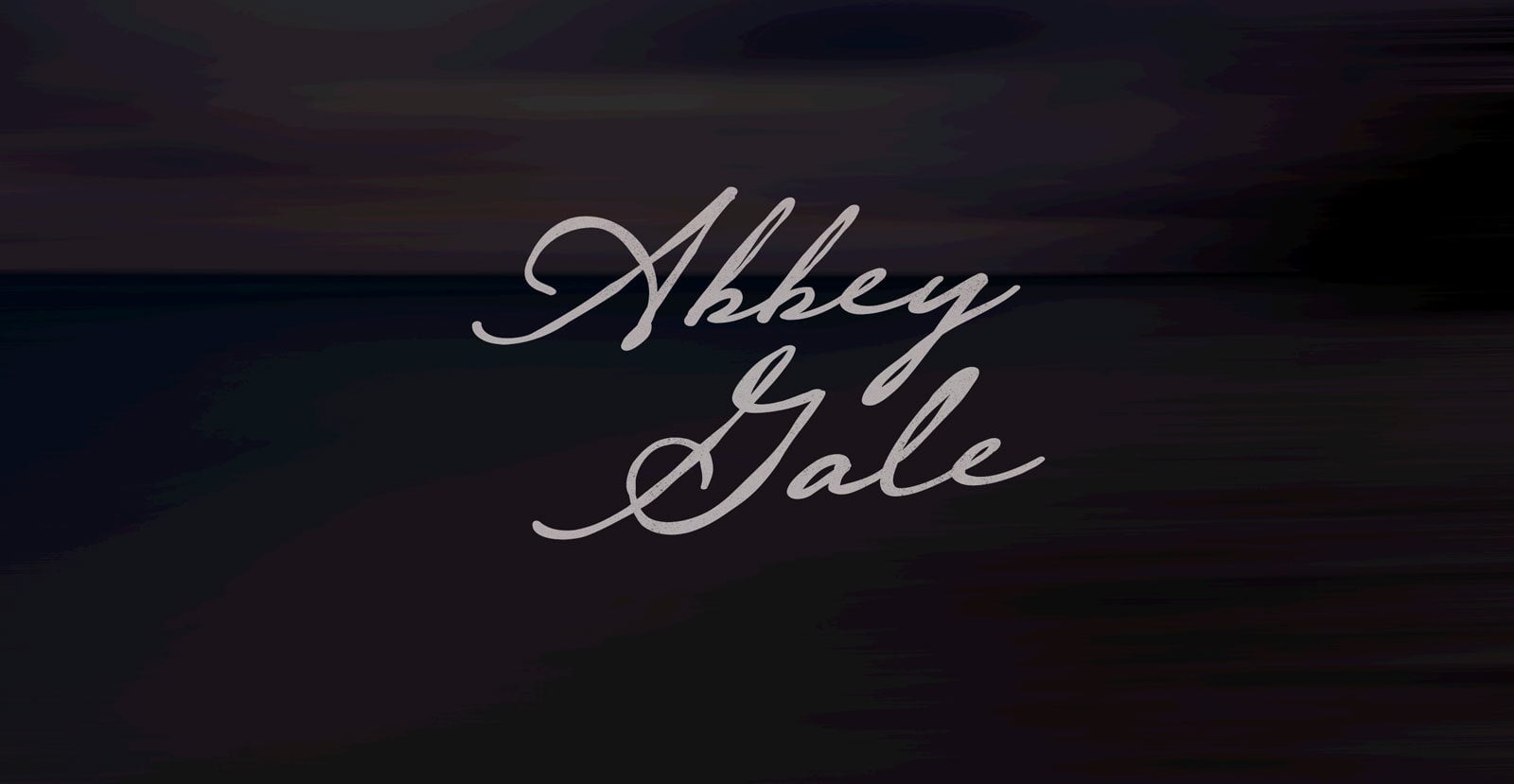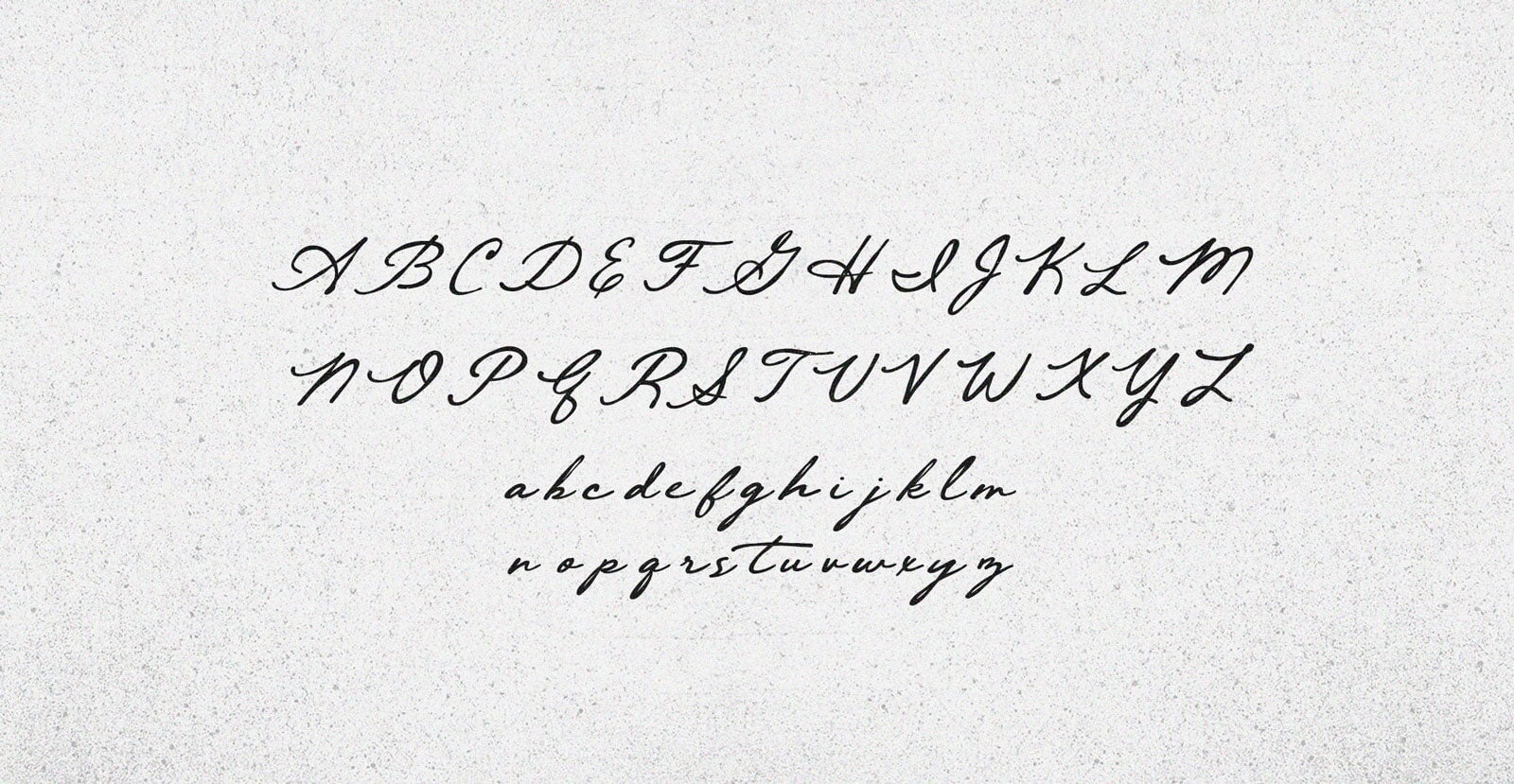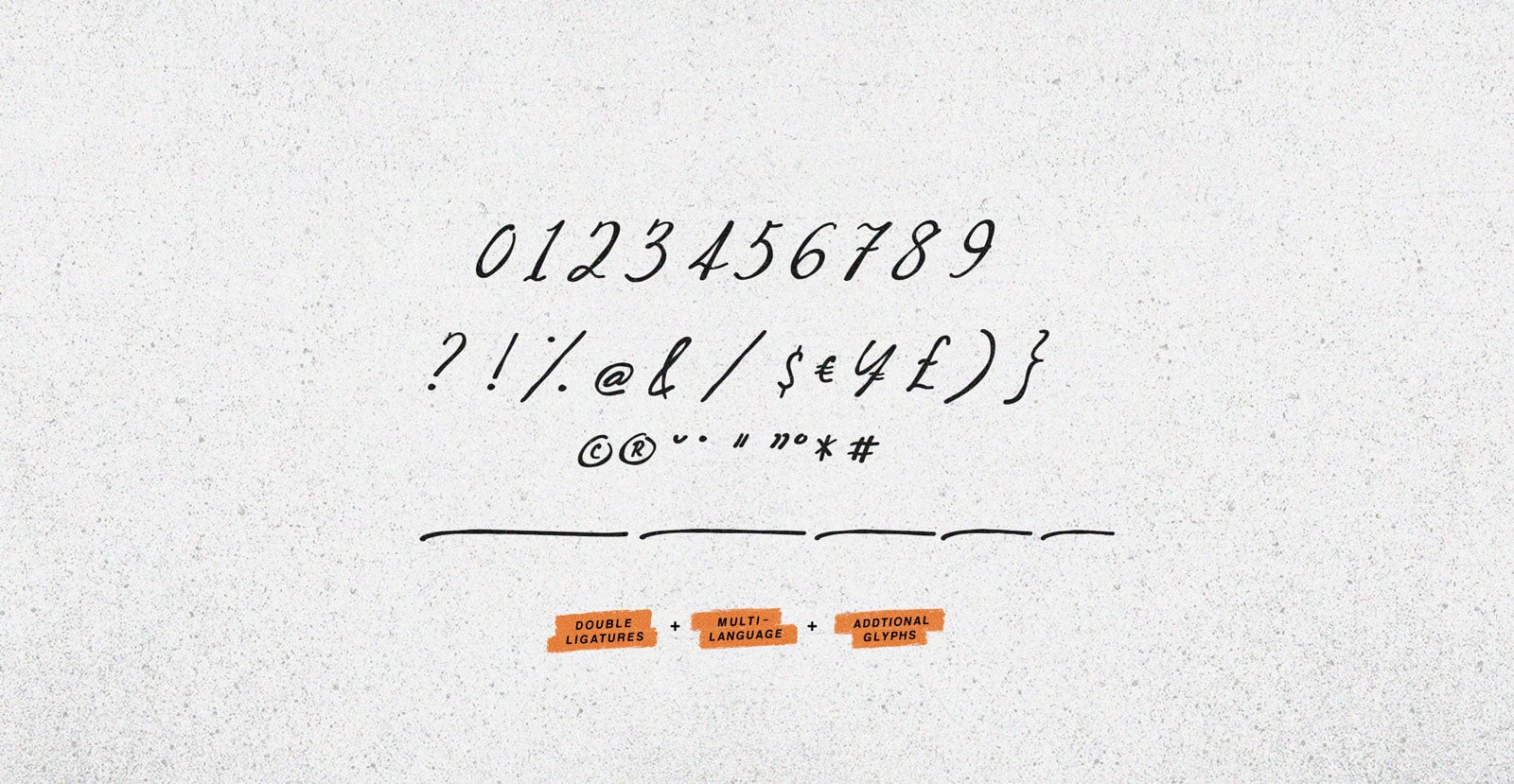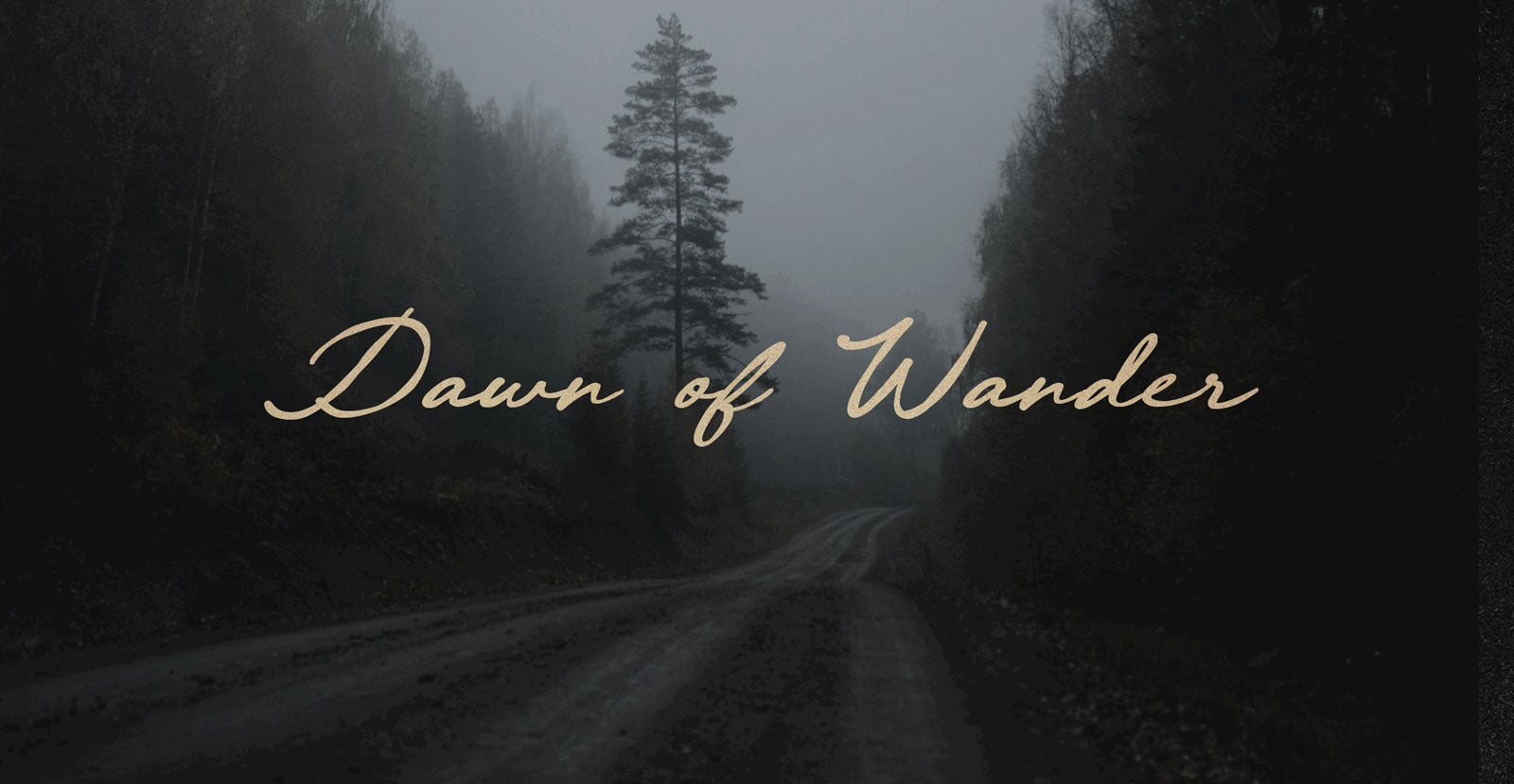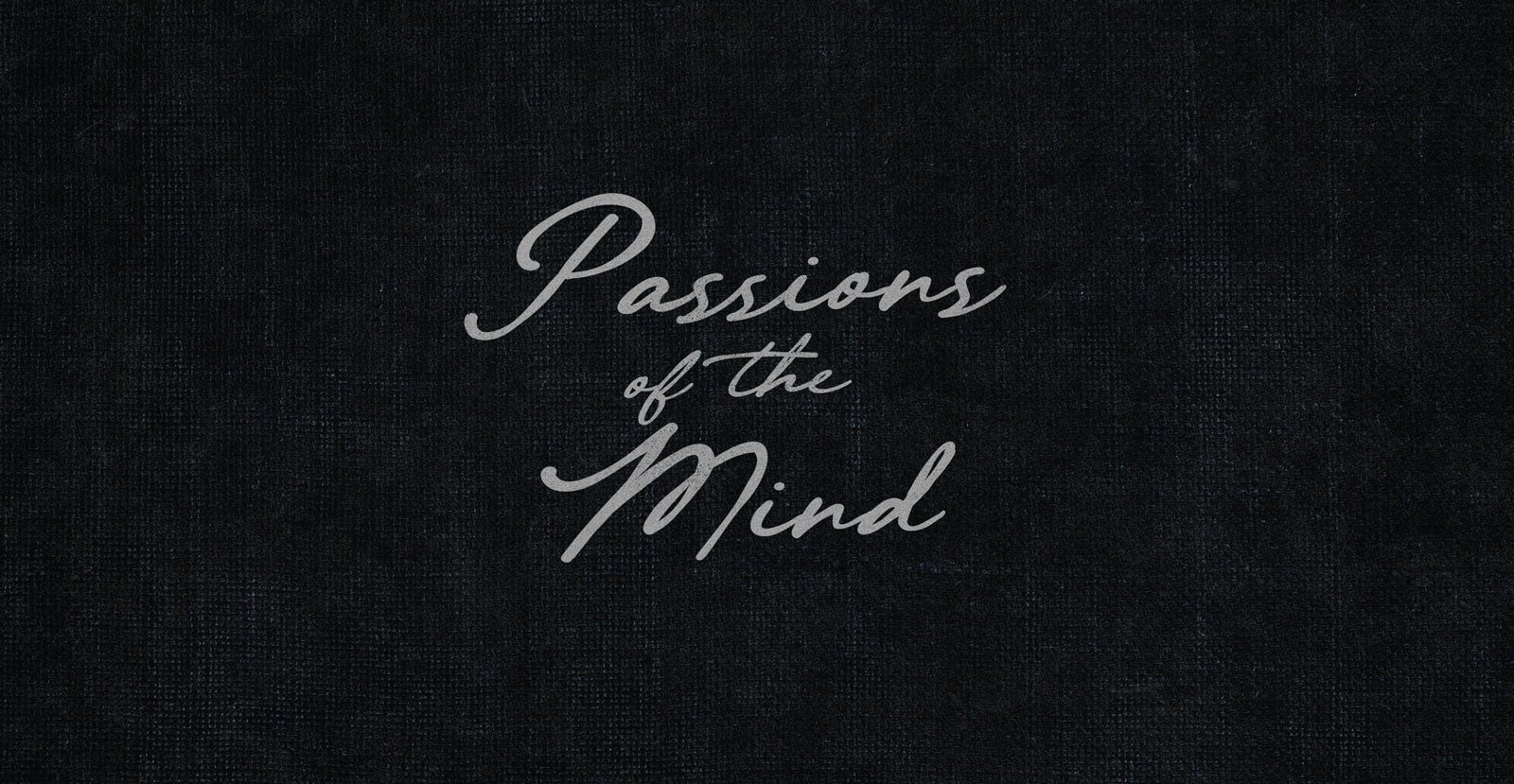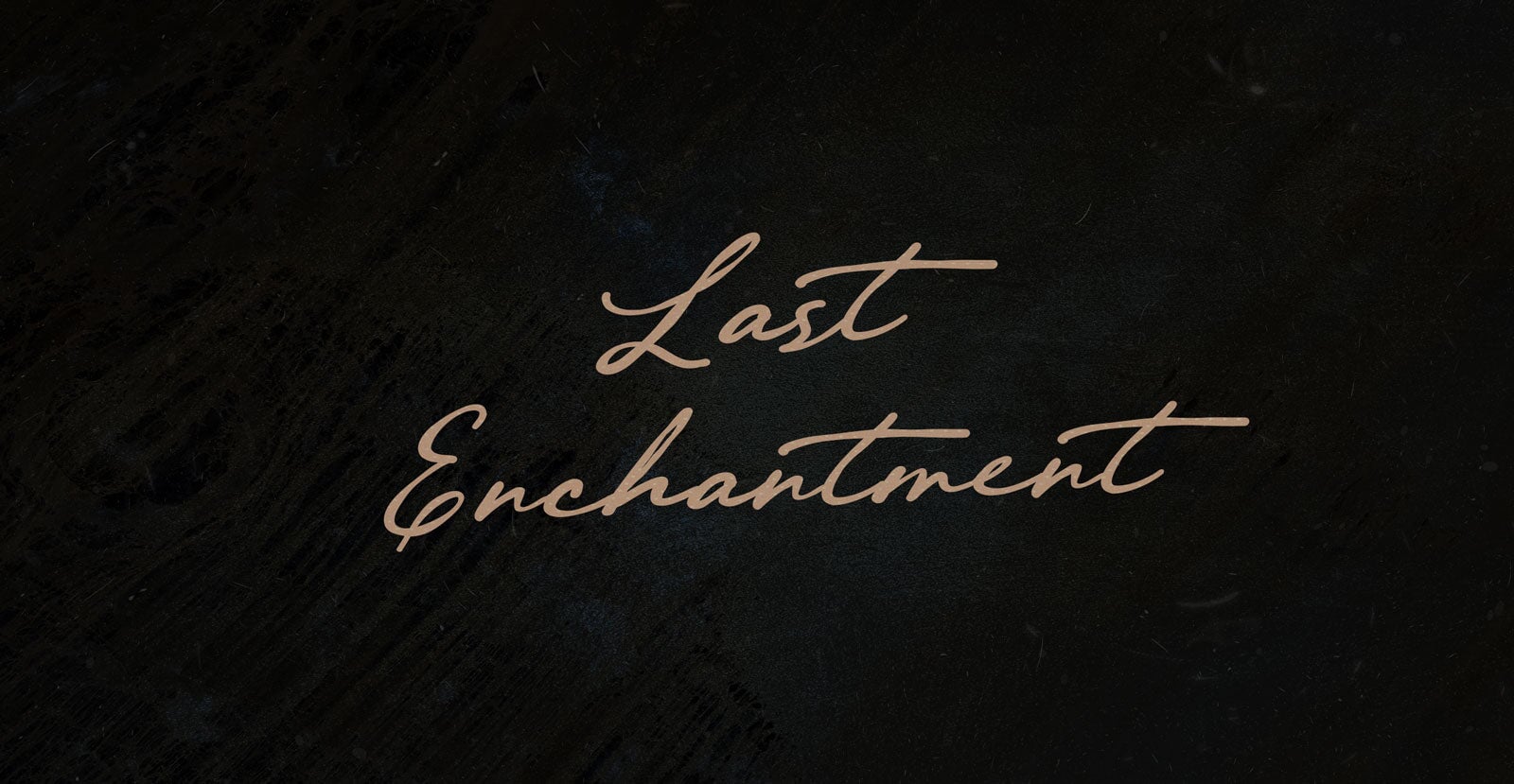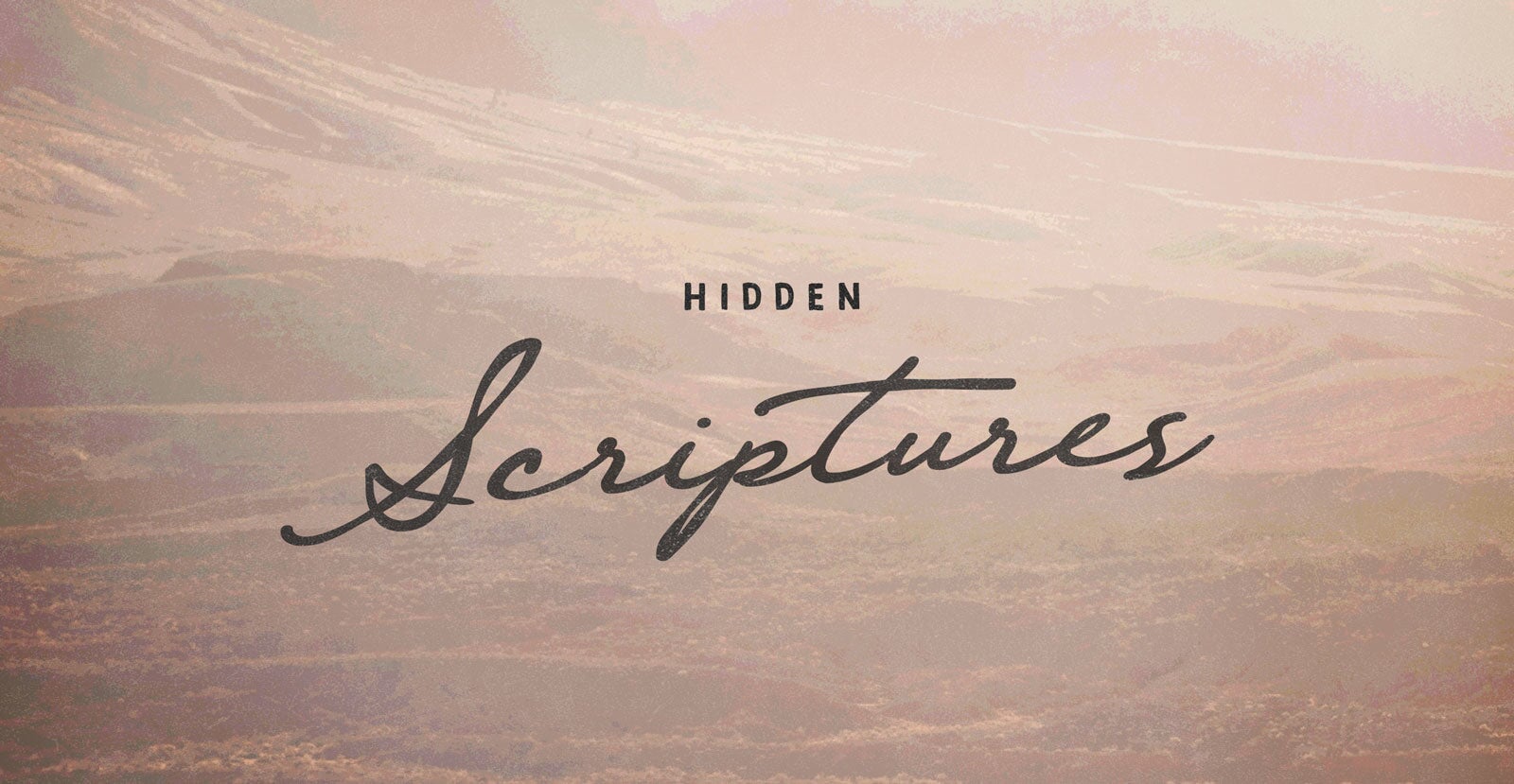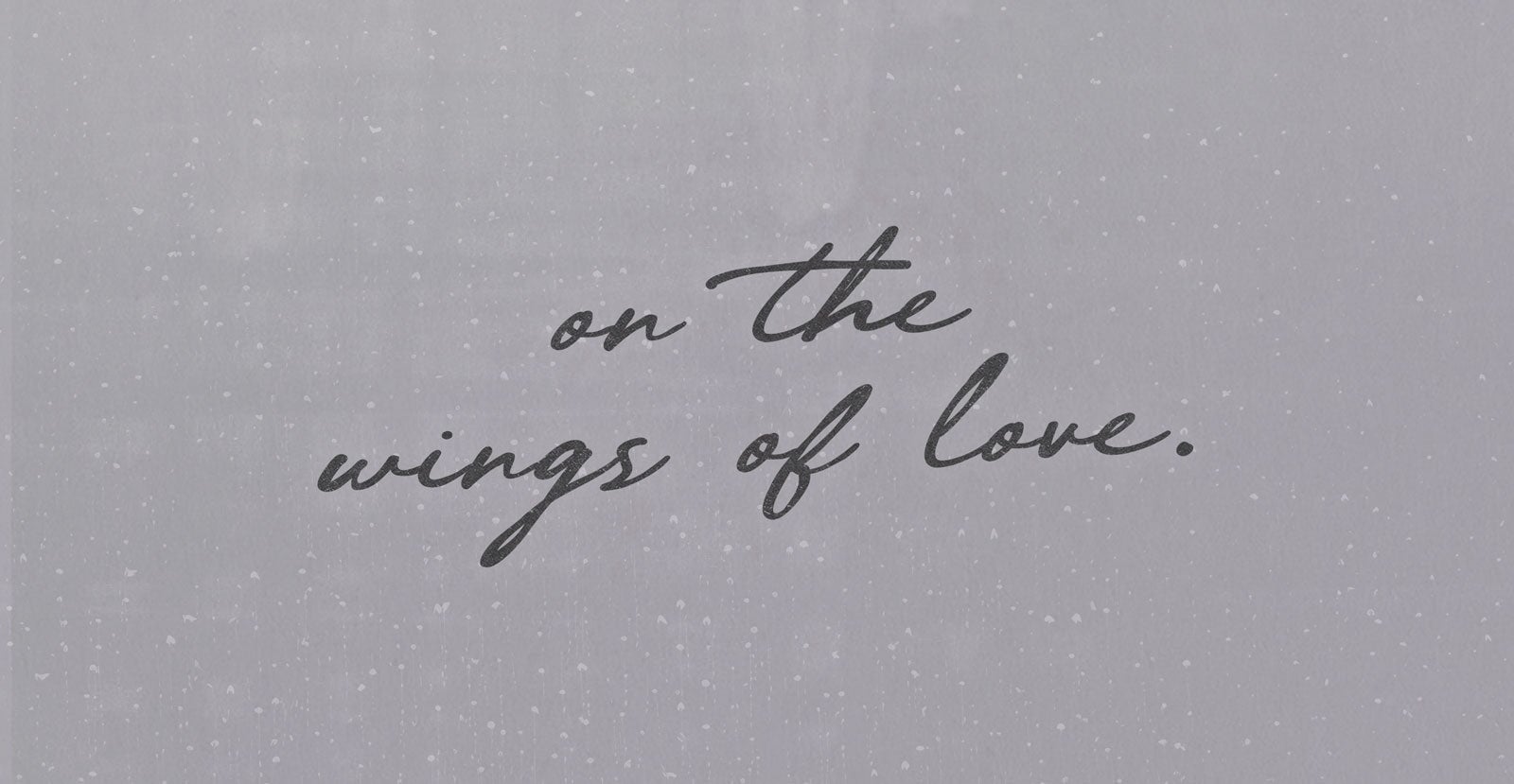
Abbey Gale
Abbey Gale drifts in with quiet drama—soft edges, storm beneath. It’s the kind of presence that lingers like weather: shifting, moody, and full of unspoken stories. Timeless, but never still.